While this is not an answer, I did not want to add it as a comment. The issue is not specific to Linux, happens under Windows as well (Win7 in particular). Also, it is not specific to font: any monospaced font seems to produce overhangs to the default frame of $n$ characters. While rasterized characters have different image dimensions, as pointed out by halirutan, this is not direclty related to the problem, as most of the operator characters comply with the expected dimensions (though they will cause a lot of problems) while those characters that have larger-than-unit dimensions (like A, W, M) might fit in nicely without an overhang. So I think that the different image dimensions and the kerning problem of e.g. "_" are different issues.
1. Rasterized characters
For the image assembly, I would suggest using a uniform image dimension applied via ImageCrop:
"non cropped individual images"
"cropped individual images"
"rasterize as a whole"
While cropping individual images is a possible workaround, sadly I have no idea why rasterized characters end up being larger than the monospaced frame. The following test indicates, that this effect depends on FontSize and Magnification but not on ImageResolution:
Figure lists those rasterized characters that do not match the ImageDimension of the standard monospaced dimension (taken from "I"). Horizontal dimension: Magnification; Vertical dimension: FontSize. I would consider this a bug.
2. Monospaced characters are not monospaced
Further investigating the first issue of monospaced characters not being monospaced when printed:
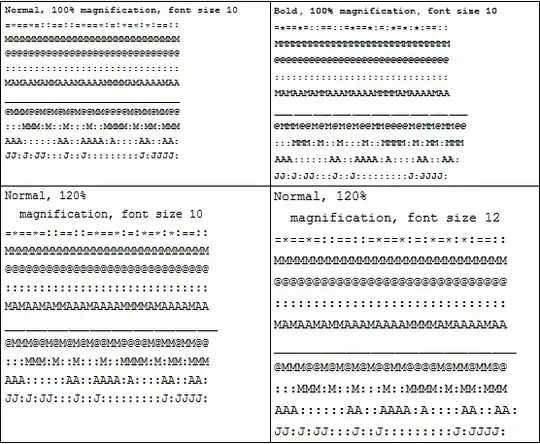
Note the followings:
- Non-bold monospaced font with 100% magnification and 10 points height produces nicely fit lines - any divergence causes overhangs.
- Operators with certain letters (while independently are ok) together form an overhang. This seems to be true for all the operators I've tested.
"_" is a renegate character as it does not even fit by itself into the frame, not even when not Bold.
- Overhang depends on magnification, font family and font size.
Again, I have no idea what causes these problems, but is definitely operator-character-related. Here, the problem is that no setup that is found on one machine is guaranteed to work on another, as a lot of these parameters depend on the OS.